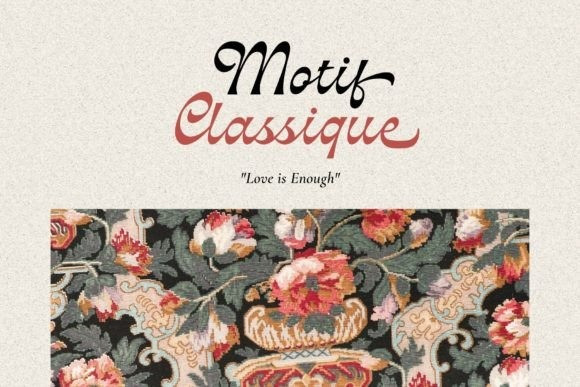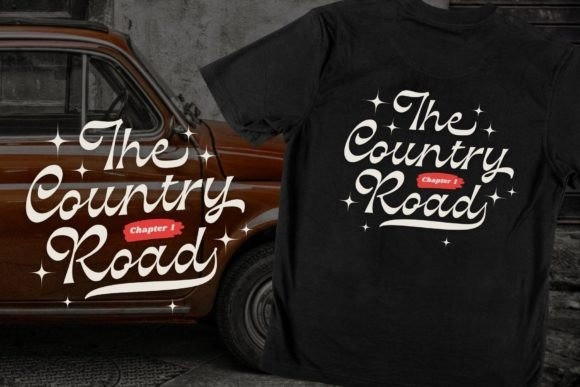
Vagodha Font
Vagodha Font a captivating retro reverse contrast script font that brings a unique and striking visual appeal to your designs. Inspired by vintage aesthetics, this font features an intriguing twist with its reverse contrast, where the thin strokes are replaced by thick ones and vice versa.